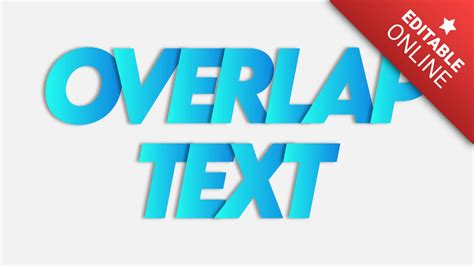
Create a Powerful, Dramatic, Deep, Overlapping Text Effect
Be unique, overlap your letters to bring attention to your words. Letters can be formed by overlapping or simply connecting letters to each other. Fontget has the largest selection of overlapping fonts and the best overlapping generator in the marketplace. Create stunning and unique text effects with our advanced font style text effect generator. With a wide range of fonts and effects to choose from, you can easily enhance your designs and make them. Download overlapping fonts for free in the highest quality available. With options like overlap and a vibrant blue color, your text will truly stand out and leave a lasting. A monogram is a combination of two or more letters to form a single symbol. Fill out the fields below to create your overlapping text. Once done, click on generate to preview and get the html code.